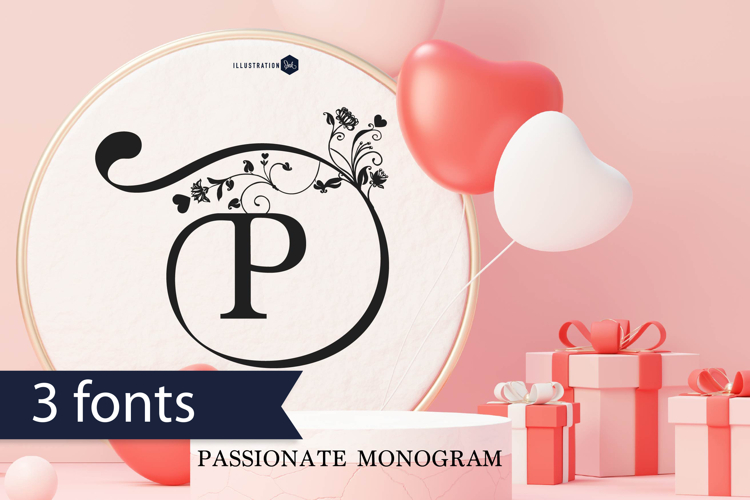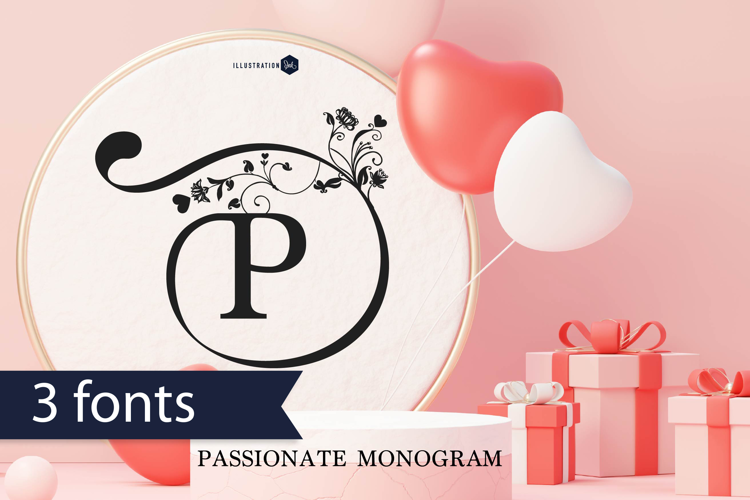
ZP Passionate Monogram Font Family
This hand-crafted font is pretty, serif monogram font that features a big swooping flourish around each uppercase letter. There are 3 variations included.